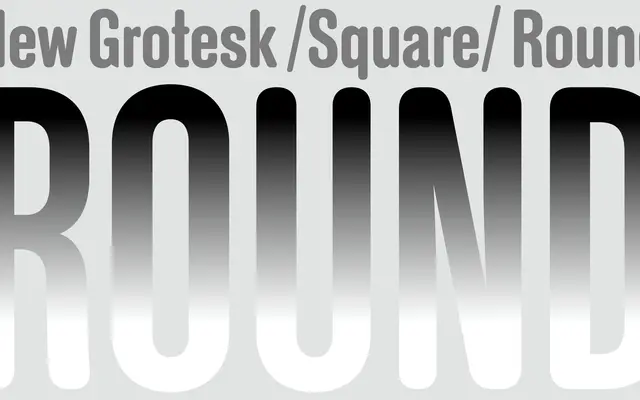
New Grotesk Round
A rounded counterpart to New Grotesk Square, sharing the same proportions and seven-weight grading system with softened terminals throughout.
Built on the same structural model as New Grotesk Square, it matches its companion in proportions, systematic weight grading and optical contrast across seven weights numbered One through Seven. The key distinction is the rounded terminals, which give the family a softer register without departing from the neutral geometric framework. Well suited to branding or digital product work where a less austere tone is needed.
A rounded geometric grotesque sharing proportions and systematic weight grading with its companion New Grotesk Square, distinguishing itself through fully rounded terminals rather than square ones.